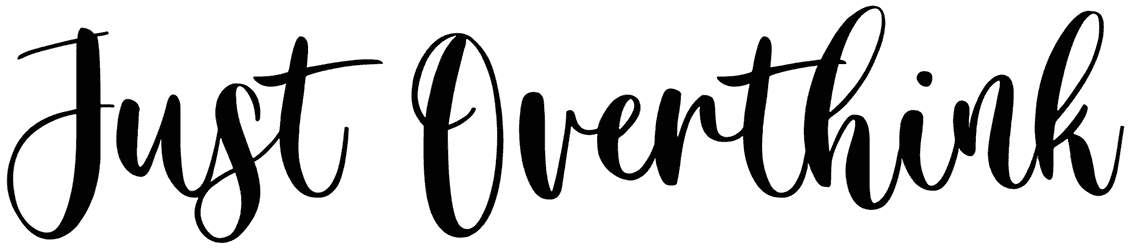
Just Overthink Font
If you are looking for a cursive font, we suggest you Just Overthink. A brilliant handwritten font that creates a delightful effect with curved and curly lines, which is perfect for website headers, magazine covers, book…
If you are looking for a cursive font, we suggest you Just Overthink. A brilliant handwritten font that creates a delightful effect with curved and curly lines, which is perfect for website headers, magazine covers, book titles, posters, and Valentine’s flyers.